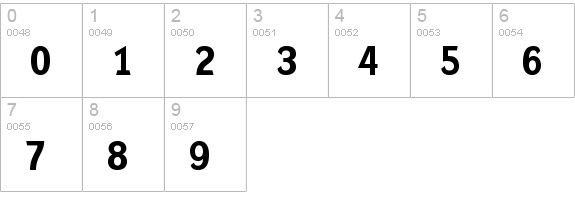
Dynamo H font is a modern and sleek typeface that exudes creativity and sophistication. With its clean lines and sharp edges, this font is perfect for a wide range of design projects, from branding to editorial layouts. The bold and dynamic appearance of Dynamo H font makes it stand out and grab attention, while still maintaining a sense of elegance. What sets Dynamo H font apart is not only its striking design, but also the fact that it is available for free download at FontsMarket.com. This means that designers and creatives can easily access and use this stylish font in their projects without any cost. Whether you're working on a corporate identity, advertising campaign, or any other design project, Dynamo H font is a versatile and stylish choice that will elevate your work to the next level.